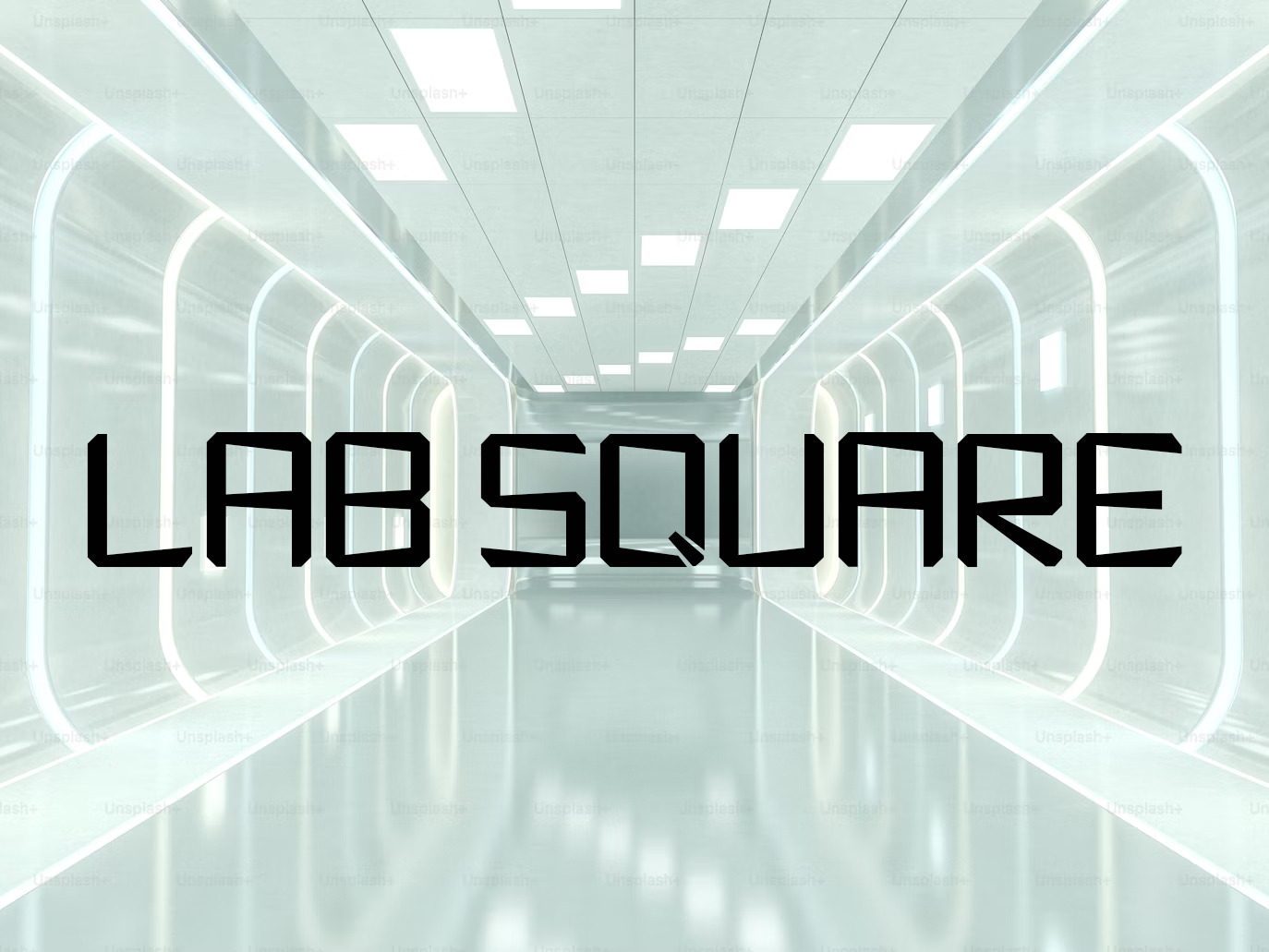
Lab Square Font, Logo Font, Typeface
Step into the future with this bold and geometric sci-fi typeface. With clean lines, angular cuts, and a modern tech-lab aesthetic, this uppercase-only font is perfect for posters, logos, games, UI design, and anything that needs a sleek, digital edge. Ideal for futuristic themes, cyberpunk vibes, or innovative branding.